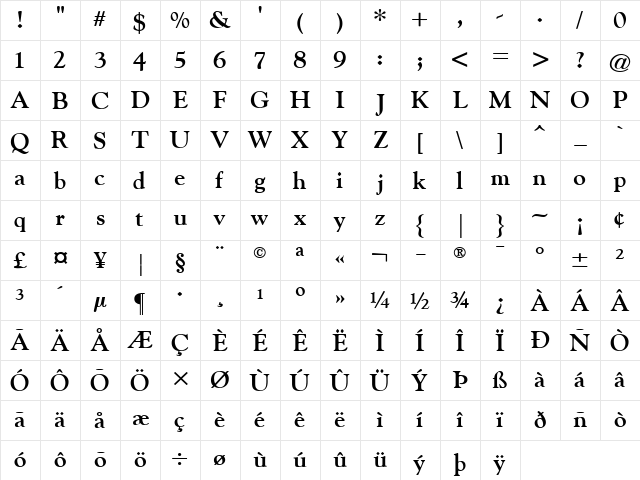
Indira K Regular
| Foundry | CAT Fonts |
| Designer | CAT-Fonts |
Design Context for Indira K Typeface
Indira K is a composed and adaptable typeface that performs quietly and consistently across a wide range of design contexts.